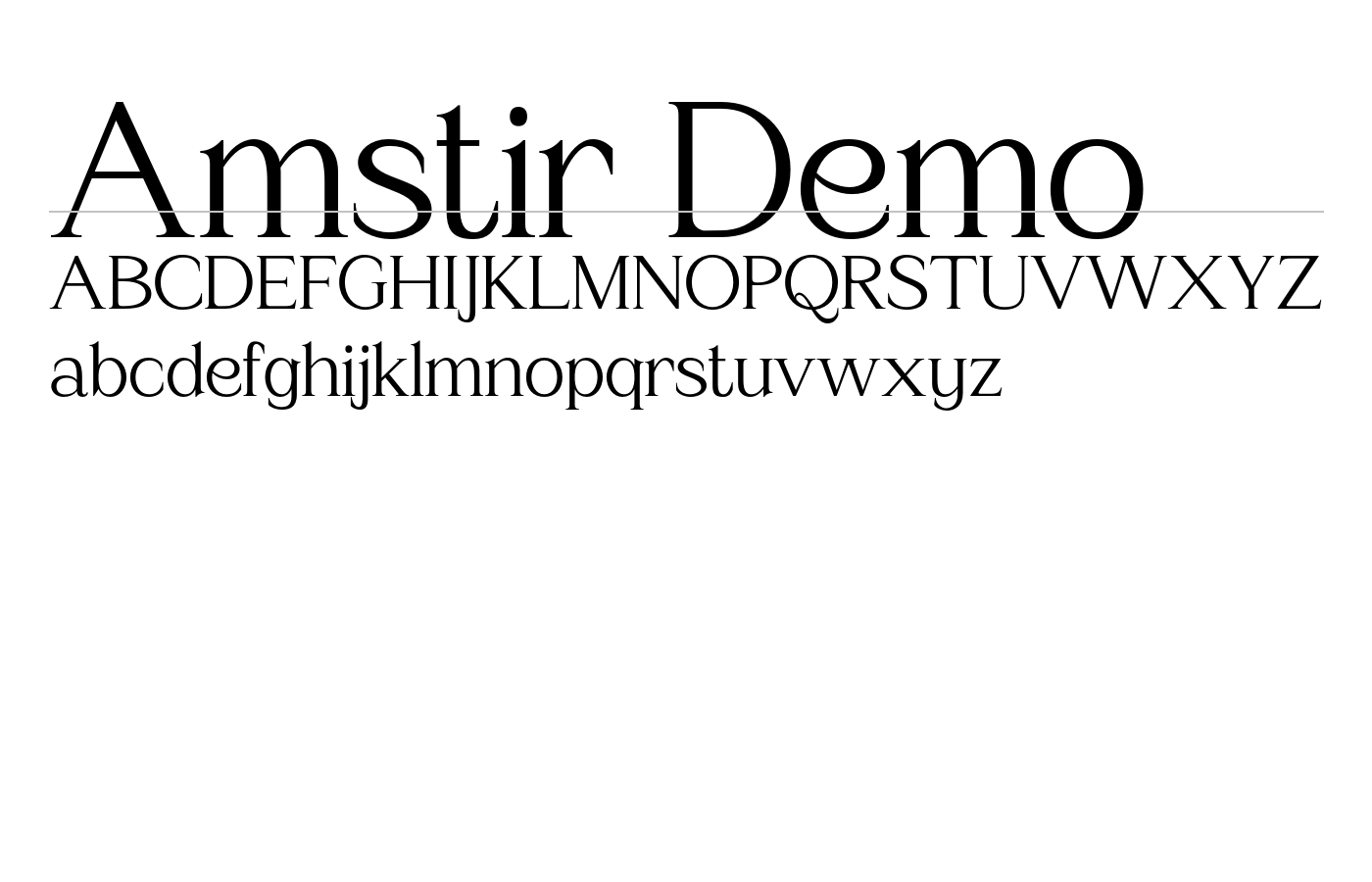
Amstir Demo is a refined serif typeface with elegant, high-contrast strokes and slender, bracketed serifs that evoke a classic yet contemporary feel. Its tall x-height and distinct letterforms, like the double-story "a" and "g" and unique Q tail, give it a sophisticated and graceful appearance, ideal for high-end editorial, luxury branding, and stylish headlines. This font works beautifully where a touch of timeless elegance and readability are needed to convey seriousness and refinement.
Amstir Demo Font
About Amstir Demo Font
| Font family | Amstir Demo Font |
| Designer | Craft Supply Co. |